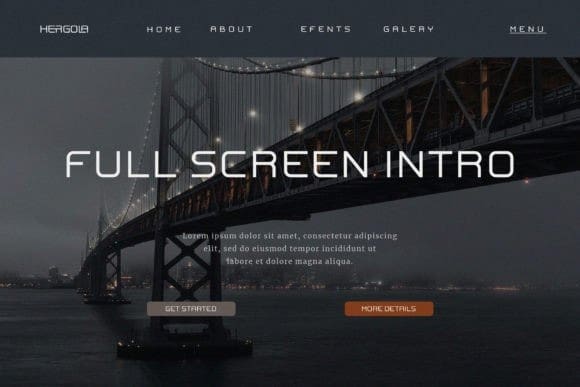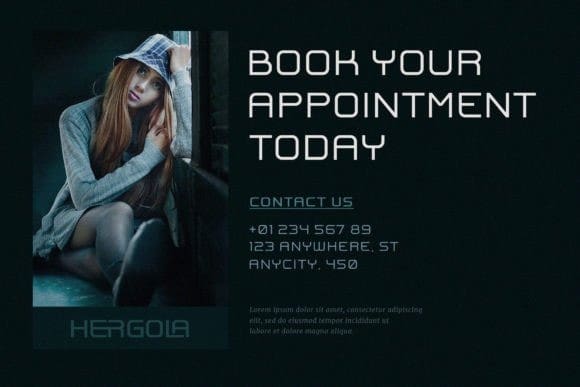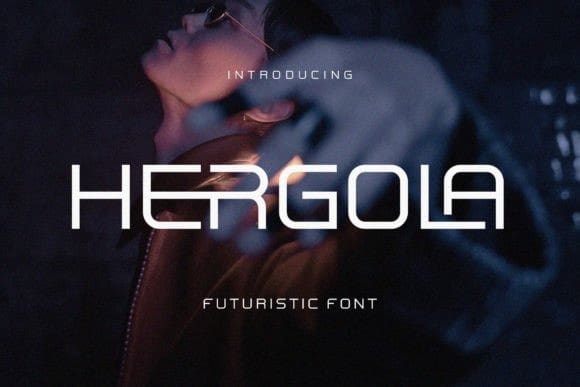
Hergola Font
Hergola Font is a modern and futuristic sans serif font. Add it to any of your creative projects, and it will seduce your audience with its style and form.